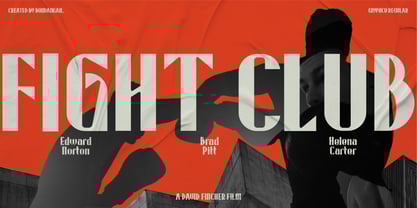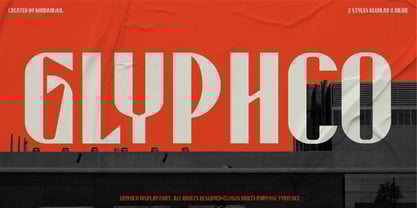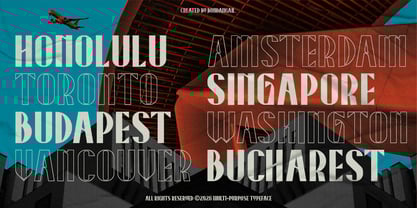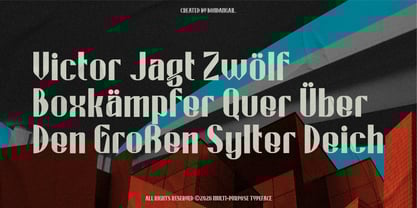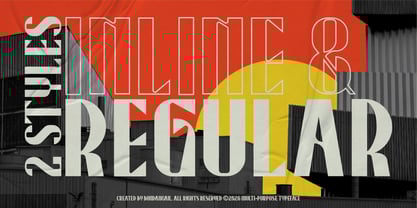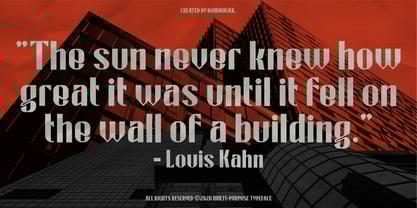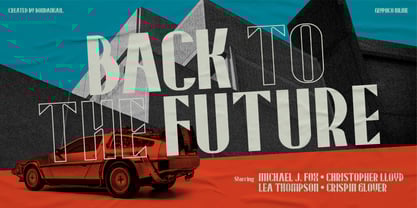
Glyphco
by BondanGail
The Glyphco Font Family was designed by Bondan Gail Saputro and published by BondanGail. Glyphco contains 2 styles and family package options. More about this family
Glyphco — Condensed Display Typeface. Glyphco is a bold, modern condensed display font designed for maximum visual impact. Its tall, heavy, and tightly spaced letterforms create a strong vertical rhythm, evoking an architectural and industrial feel. With sharp internal cuts, minimal curves, and confident strokes, this typeface exudes a contemporary, almost futuristic character. The condensed proportions make Glyphco ideal for headlines, posters, branding, editorial covers, and large-scale typography, where space efficiency and bold presence are crucial. The design strikes a balance between geometric precision and expressive details, making it suitable for modern design systems, tech branding, street-inspired visuals, and high-impact advertising. Glyphco Includes: • 2 style Typefaces: Regular and Inline • Uppercase, Lowercase, Numerals, Symbols, and Punctuation • Multilingual support • Compatible with PC & Mac • Accessible in Adobe Illustrator, Adobe Photoshop, Adobe InDesign, and Microsoft Word. • Note: All photographs, pictures, and vectors used in the preview are not included; they are for illustration purposes only.